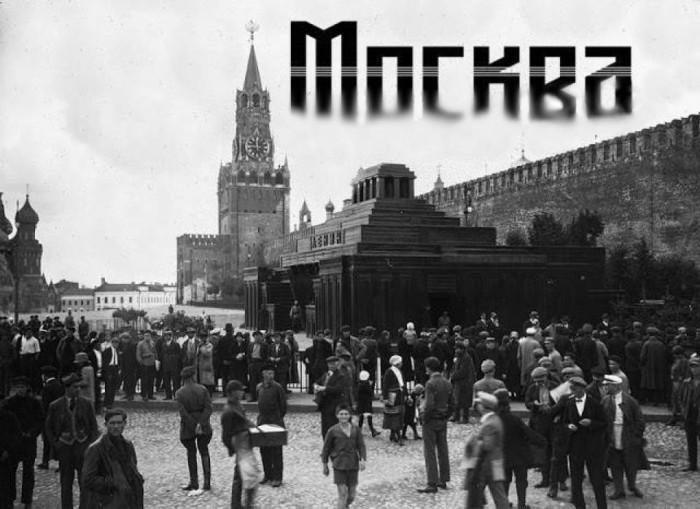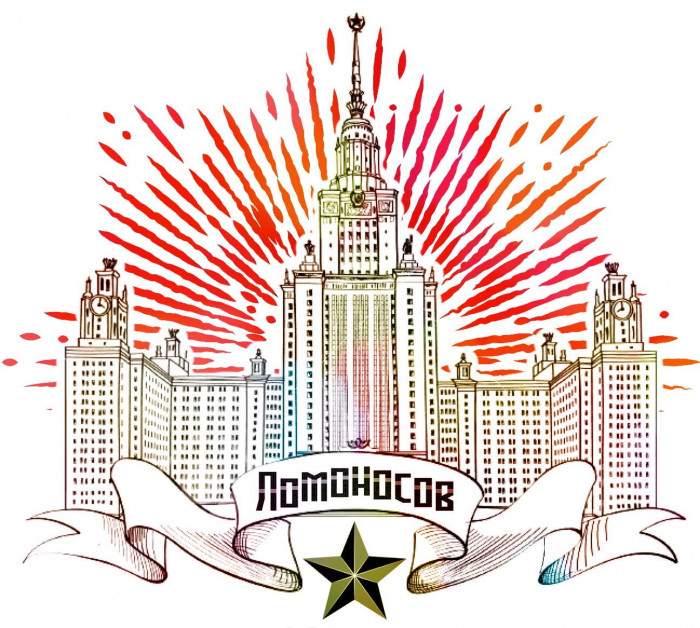
Moscow, Paris, Berlin in the 1920s... Konstruktivizm, Art Deco, Bauhaus... Effervescent people! This font is for Sergei, the smiling boy in the picture, and for all the people who together built the world. See also zandrine and ztefan.
Beautiful font with a lovely sample. Nice Cyrillic glyphs ;)
A excellent font, very fitting to the location and era. The three lines add a subtle touch.
@architaraz & @four: Thanks again, comrades! The lines in the glyphs are reminiscent of the design ornaments of many building facades of the time, BTW.
I love your fonts and your concept in the competition. But in this font the д have too close descender at the left side.
@Dmitriy Sychiov: Thanks a lot. I've moved it a bit.
Mistakes:
The lowercase N is backwards
Can you fix the font?
@Fgm12345 - Design choices are not "mistakes" and require no fixing.  The n is a small N.
@Fgm12345: You can clone this font (all my fonts can currently be cloned) and add whatever you want to your clone-copy. Then, you can fix your "new" font and then publish and use it. Don't hesitate.